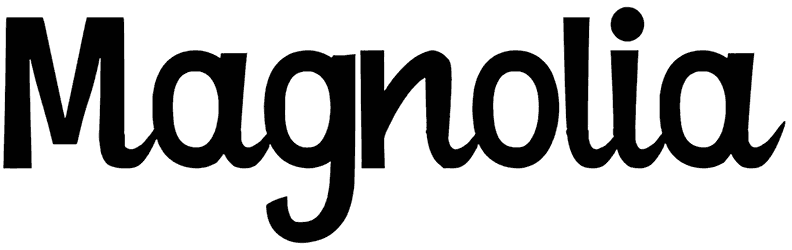
Magnolia Font
Magnolia font was created inspired by magnolia flowers. It can flow on the paper or screen and give a silky personality to your project. This cursive font tends to be used for feminine and girly purposes such as cosmetics, doll packaging, barber’s shop logos, perfumes, and more. Try it out and release any friendly and playful vibes.
Designed by: Rhidtype